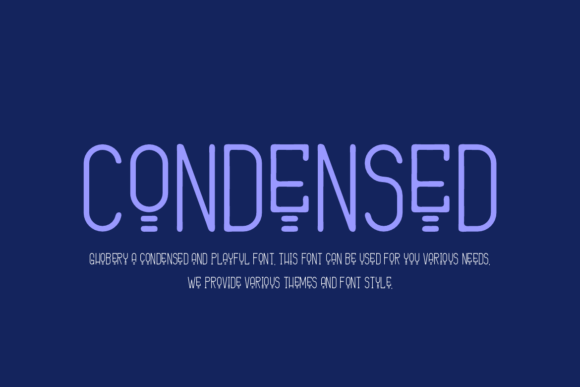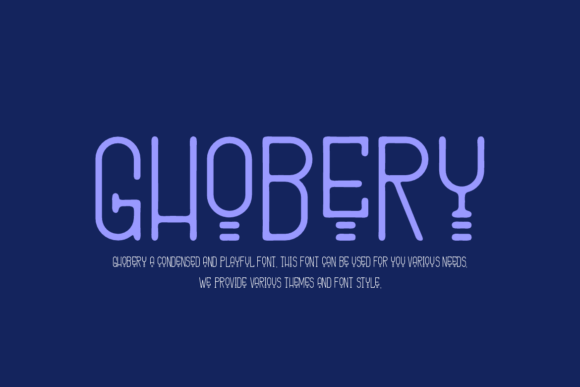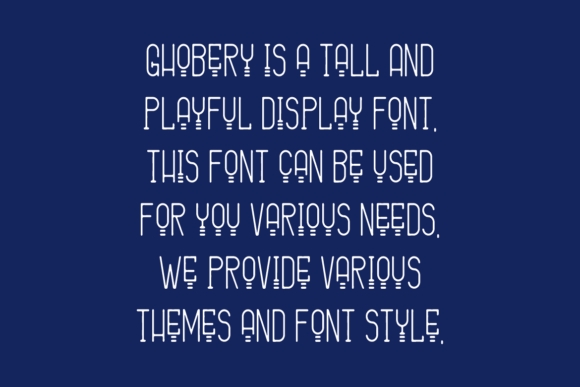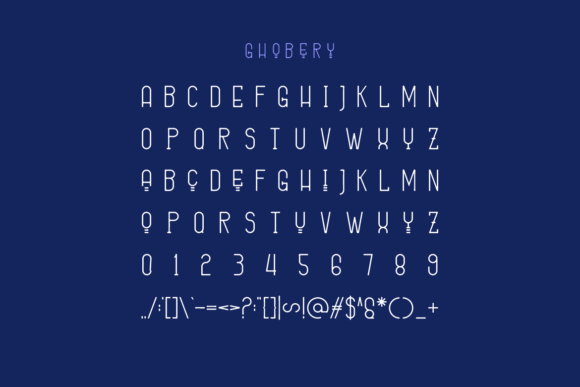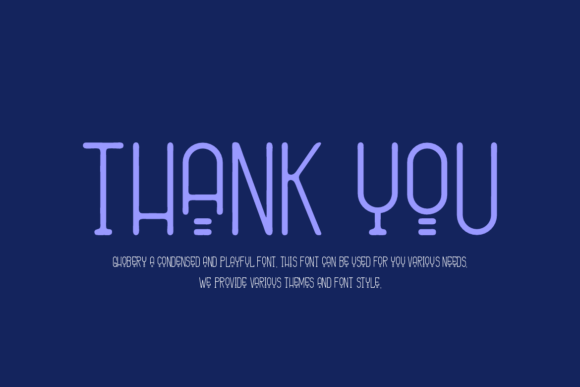
Introduction to Ghobery Font
Ghobery is a sleek and tall modern font with clean lines, perfect for making text stand out.
Its bold, elegant style works well for titles, posters, or any project that needs a strong, eye-catching look .
Key Features of Ghobery Font